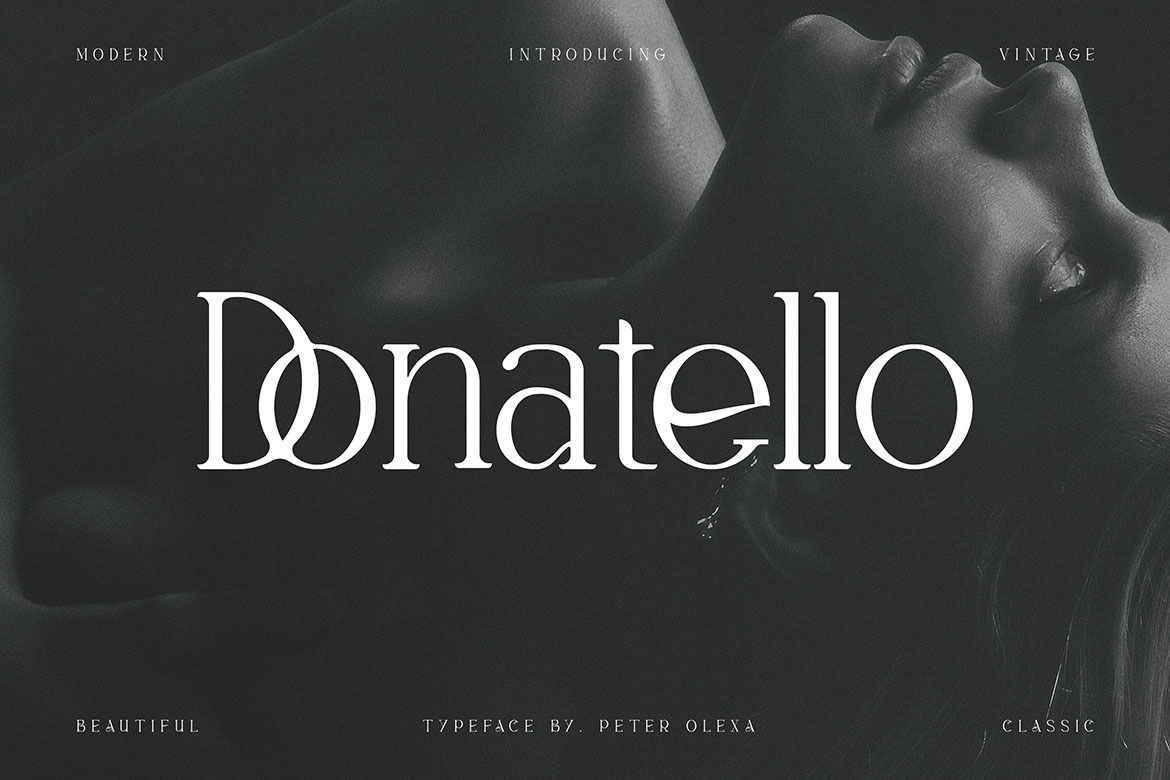
Donatello - Modern Serif Font
Trendy or modern style serif font for your fancy projects. Elegant and classic style on Donatello font will be great for any branding project. Enjoy :)
- Great for modern branding projects!